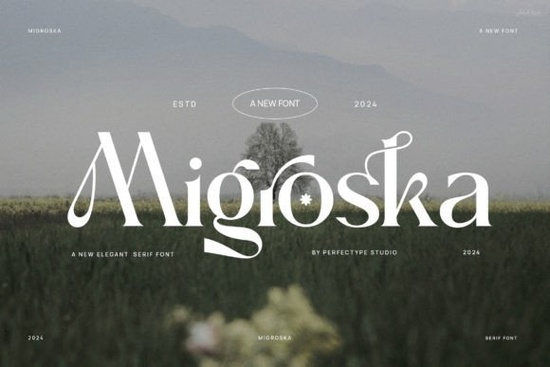
If you've been searching for a serif typeface that looks polished without feeling stiff, Migroska Font is worth a close look. It's a classy serif with elegant ligatures that work beautifully for headings, logos, branding, and even printed materials. The design strikes a balance between classic and modern, which makes it versatile enough for a wide range of creative projects.
What Makes Migroska Different from Other Serif Fonts?
There are plenty of serif fonts out there, so what makes Migroska stand out? A few things:
- Elegant ligatures The built-in letter combinations give your text a refined, handcrafted feel. These aren't gimmicky; they actually improve how certain letter pairs look together.
- Clean letterforms Each character is carefully designed with consistent proportions, so your text reads well at both large and small sizes.
The result is a typeface that looks high-end but is genuinely easy to work with.
Who Is This Font Best Suited For?
Migroska works well for a surprisingly broad audience. Here's a quick breakdown:
- Print-on-demand sellers Use it for mug designs, tote bags, greeting cards, and apparel typography. The ligatures give your products a premium look that stands out in crowded marketplaces.
- Small business owners Logos, business cards, packaging, and menu designs all benefit from a serif with this level of sophistication.
- Bloggers and content creators Blog headers, Pinterest pins, and social media graphics get an instant upgrade with a well-designed serif.
How Does Migroska Compare to Other Serif Options?
Each of these fonts serves a slightly different purpose, so it depends on the mood you're going for. Migroska leans toward refined and modern, which makes it a strong all-rounder for professional-looking projects.
What Can You Actually Create with Migroska?
Here are some specific project ideas that suit this typeface well:
- Wedding invitations and event stationery The ligatures add a romantic, handwritten quality without sacrificing readability.
- Logo design Serif logos convey trust and tradition. Migroska's clean edges keep it from feeling outdated.
- Book covers and chapter headings It reads well at display sizes and pairs nicely with simple sans-serif body text.
- Social media templates Quote graphics, sale announcements, and promotional posts all look more polished with a quality serif.
- Product packaging Labels, boxes, and tags benefit from typography that looks intentional and well-crafted.
Tips for Getting the Most Out of This Font
To make sure your designs look their best, keep these tips in mind:
- Use the ligatures They're one of the best features of this typeface. Make sure ligatures are turned on in your design software, or access them through the character map since it's PUA encoded.
- Pair it wisely Migroska works well alongside clean sans-serifs. Avoid pairing it with overly decorative or script fonts, which can compete for attention.
- Test at different sizes Preview your text at the actual size it will appear on the final product. Some ligatures look best at larger display sizes.